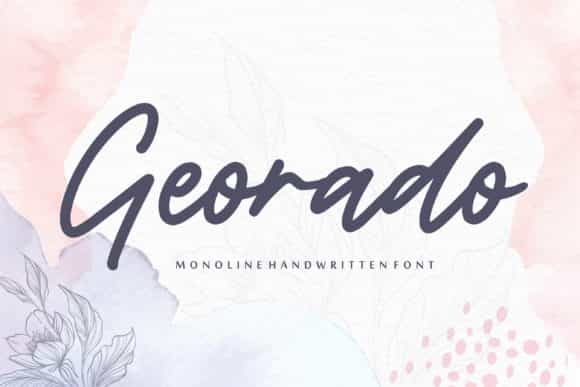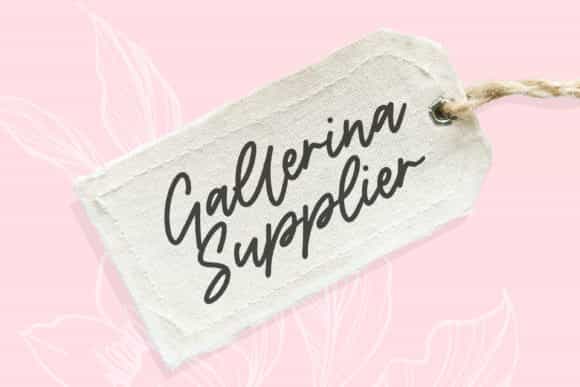
Georado can be described as a delightful and warm handwritten script typeface that is monoline. Its organic and distinctive design makes it an ideal addition to the vast array of styles. The only limitation you have is the imagination!